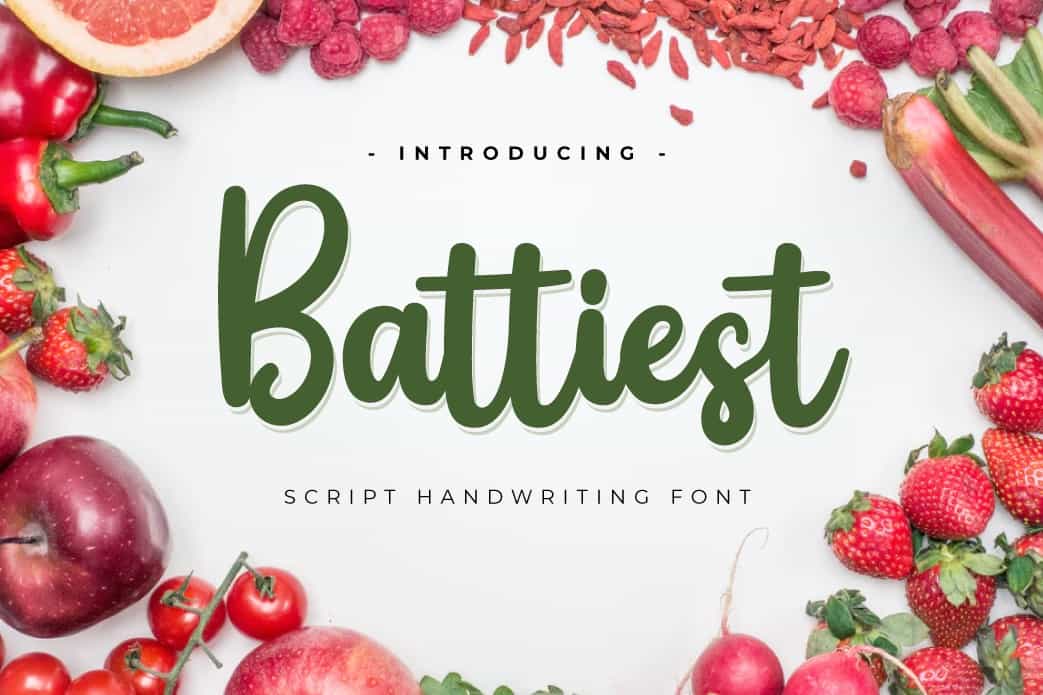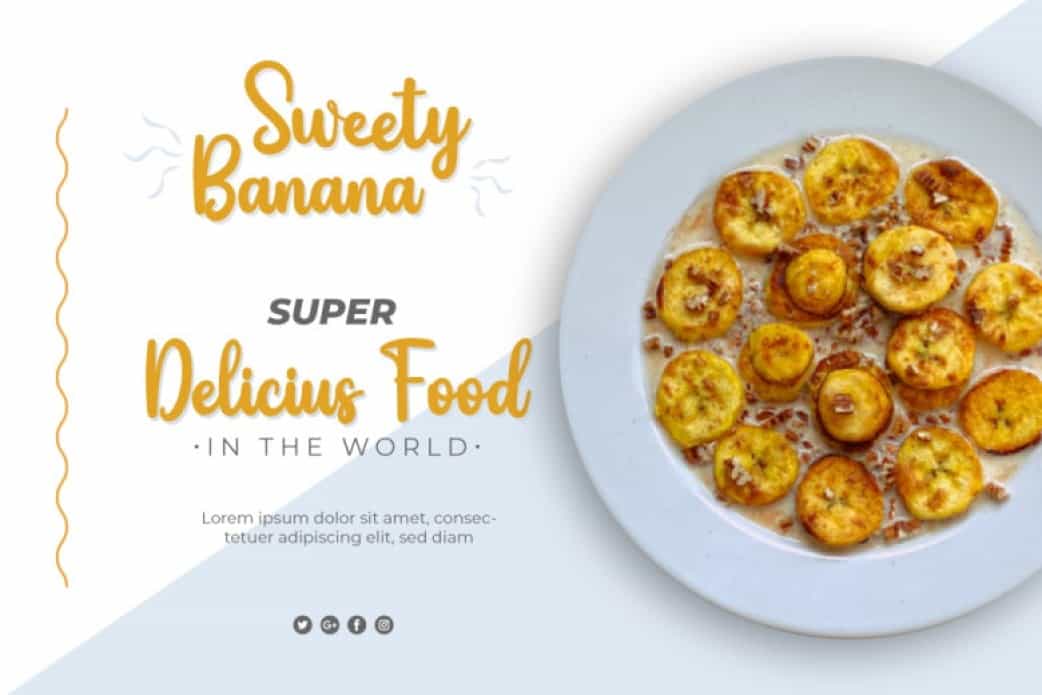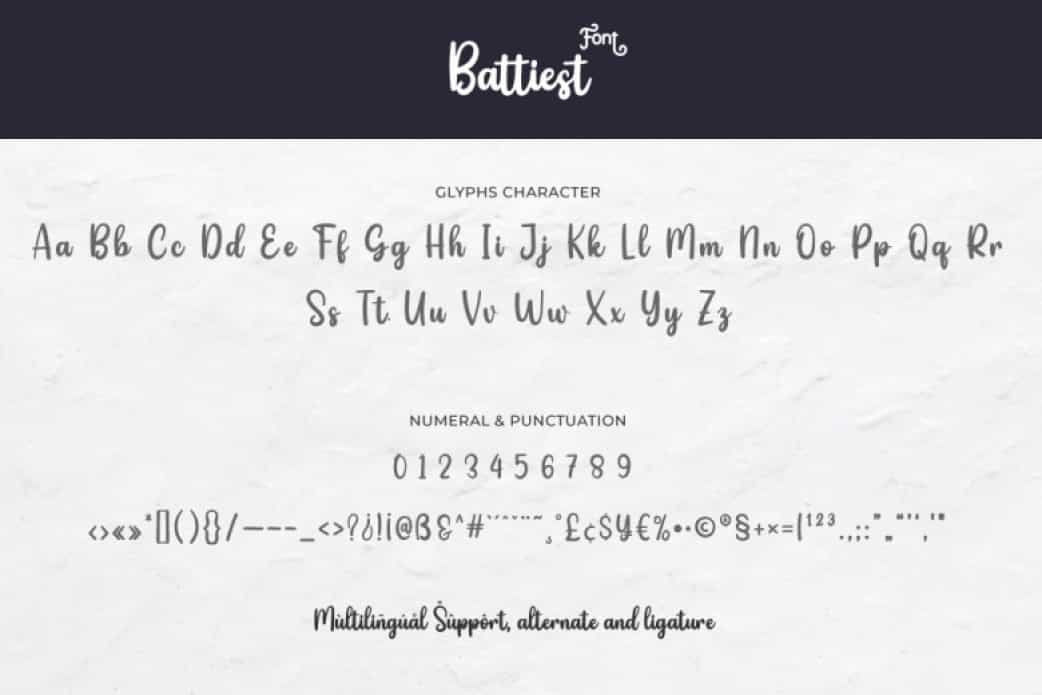
Battiest is our newest modern handwriting script font with special curves that give elegance and elegance when used, as well as giving its own charm when looking at it. Battiest was designed with handwriting like elements that have been optimized to blend well with any piece of writing that you may require.